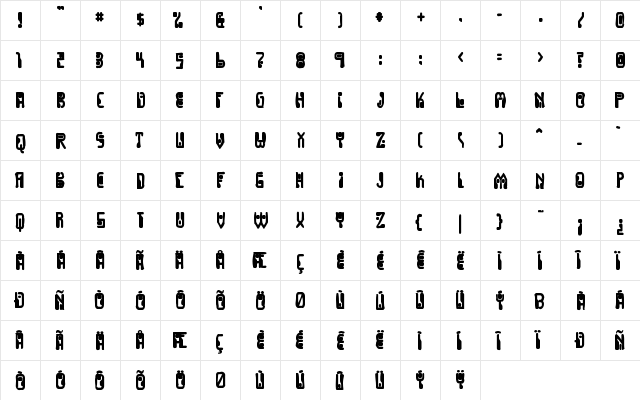
Dignity Of Labour Ink Regular
Design Context for Dignity Of Labour Ink Typeface
Dignity Of Labour Ink is a composed and adaptable typeface that performs quietly and consistently across a wide range of design contexts.